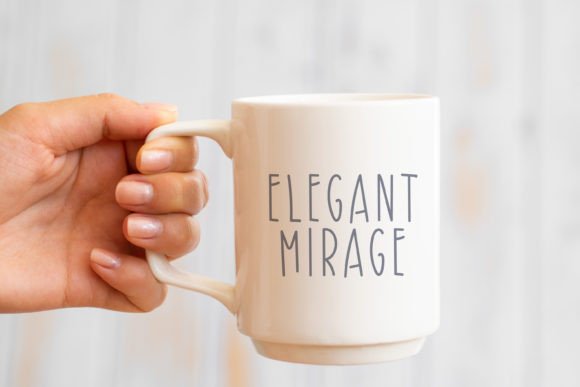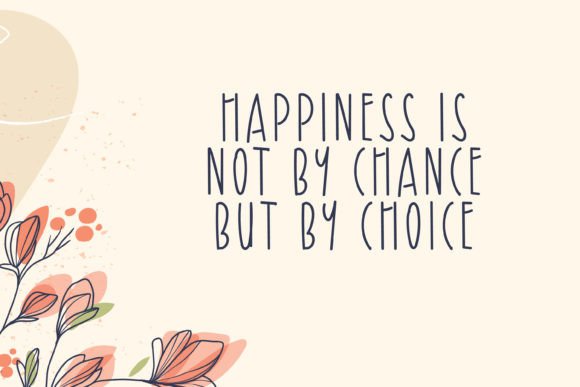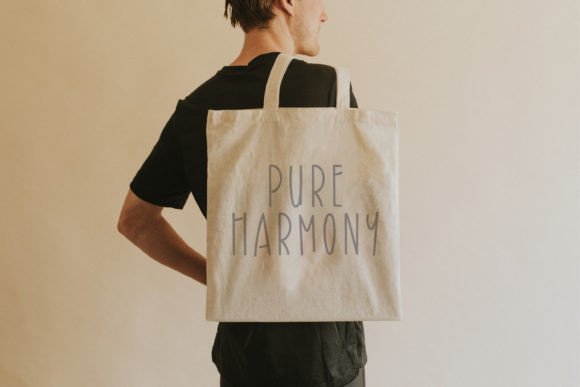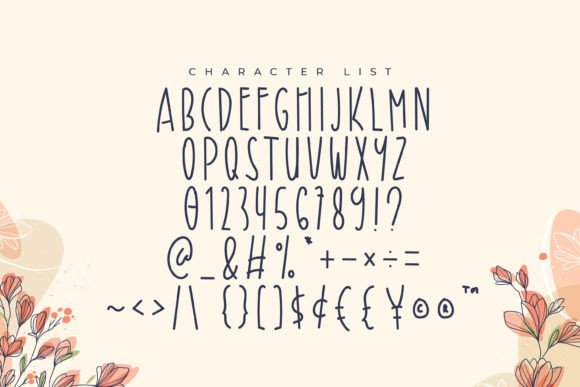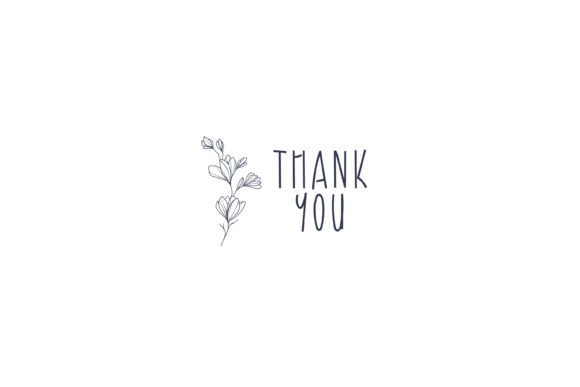
Frosted Bloom Font: The Perfect Choice for Playful and Creative Projects
Are you looking for a font that embodies trendiness and authenticity for your children’s activity or school project? Look no further than Frosted Bloom Font! This playful and cute display font is perfect for designers and crafters who want to add a touch of whimsy and fun to their work.
What is Frosted Bloom Font?
Frosted Bloom Font is a unique and eye-catching display font that is designed to make your project stand out. Its playful and cute design makes it perfect for use in children’s activities, school projects, and other creative endeavors. The font’s trendiness and authenticity ensure that it will appeal to kids and adults alike.
Characteristics of Frosted Bloom Font
Frosted Bloom Font has several characteristics that make it a great choice for designers and crafters. Some of its key features include:
- Playful and Cute Design: Frosted Bloom Font has a fun and playful design that is sure to delight kids and adults alike.
- Trendiness and Authenticity: The font’s trendiness and authenticity ensure that it will appeal to a wide range of audiences.
- Display Font: Frosted Bloom Font is a display font, making it perfect for use in titles, headings, and other prominent text elements.
- Easy to Read: Despite its playful design, Frosted Bloom Font is easy to read, making it perfect for use in projects where clarity is important.
Uses for Frosted Bloom Font
Frosted Bloom Font is a versatile font that can be used in a variety of projects, including:
- Children’s Activities: Frosted Bloom Font is perfect for use in children’s activities, such as coloring books, activity sheets, and educational materials.
- School Projects: The font is also great for use in school projects, such as posters, presentations, and reports.
- Crafting Projects: Frosted Bloom Font can be used in a variety of crafting projects, such as scrapbooking, card making, and DIY signs.
- Digital Design: The font can also be used in digital design projects, such as social media graphics, blog posts, and website headers.
Tips for Using Frosted Bloom Font
Here are a few tips for using Frosted Bloom Font in your projects:
- Use it as a Display Font: Frosted Bloom Font is designed to be used as a display font, so use it to add emphasis and visual interest to your project.
- Pair it with Other Fonts: Frosted Bloom Font can be paired with other fonts to create a unique and visually appealing design.
- Experiment with Colors: The font looks great in a variety of colors, so don’t be afraid to experiment and find the perfect color for your project.
Frosted Bloom Font is a playful and cute display font that is perfect for designers and crafters who want to add a touch of whimsy and fun to their work. Its trendiness and authenticity ensure that it will appeal to kids and adults alike, making it a great choice for children’s activities, school projects, and other creative endeavors. With its easy-to-read design and versatility, Frosted Bloom Font is a great addition to any designer’s or crafter’s toolkit.